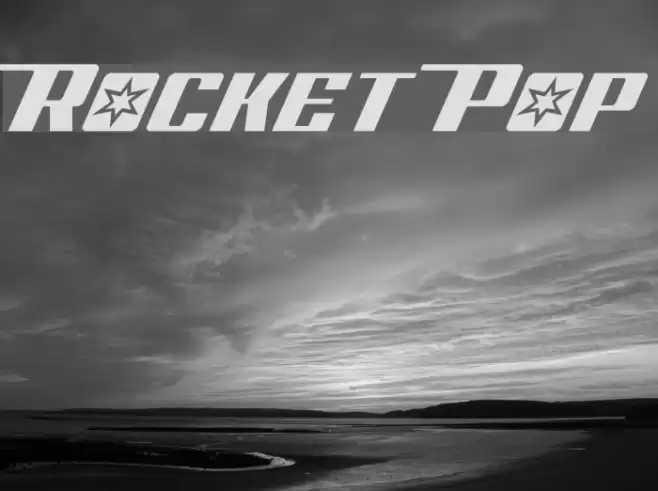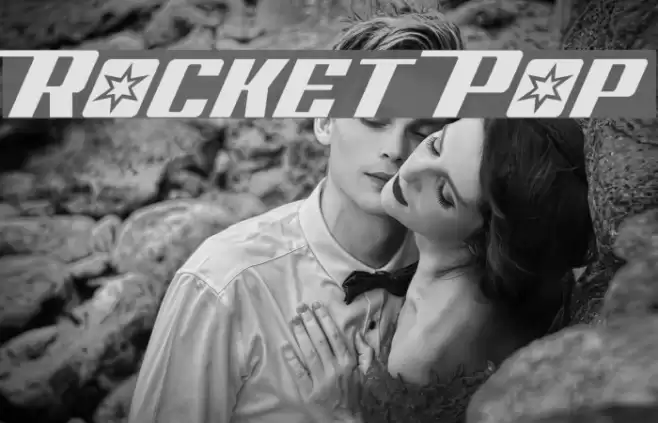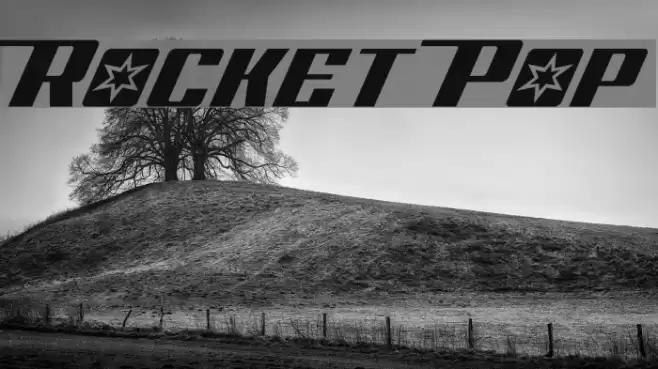
Rocket Pop Font
Rocket Pop Description
This font features a bold, angular design with a futuristic and dynamic appearance. The characters are slanted, giving a sense of motion and energy. Each letter is crafted with sharp edges and a consistent stroke width, contributing to a cohesive and striking visual impact. The inclusion of star motifs within certain characters adds a unique and playful element, enhancing its decorative appeal. The numbers and special characters maintain the same bold and angular style, ensuring uniformity across all glyphs. This font is ideal for projects that require a strong, eye-catching typeface with a modern and adventurous vibe.
A bold, angular font with a futuristic and dynamic style, featuring star motifs from Uncategorized fonts.
- Proposed Projects: Ideal for sci-fi themed posters, video game titles, branding for tech companies, or any project needing a bold, modern look.